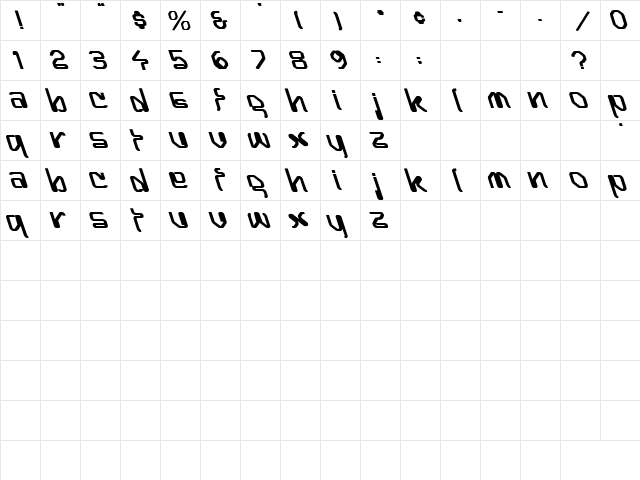
Hairpin-Pushed to The Left Bold
Design Context for Hairpin-Pushed to The Left Typeface
Hairpin-Pushed to The Left is a composed and adaptable typeface that performs quietly and consistently across a wide range of design contexts. The heavy weight commands attention and anchors typographic hierarchies.